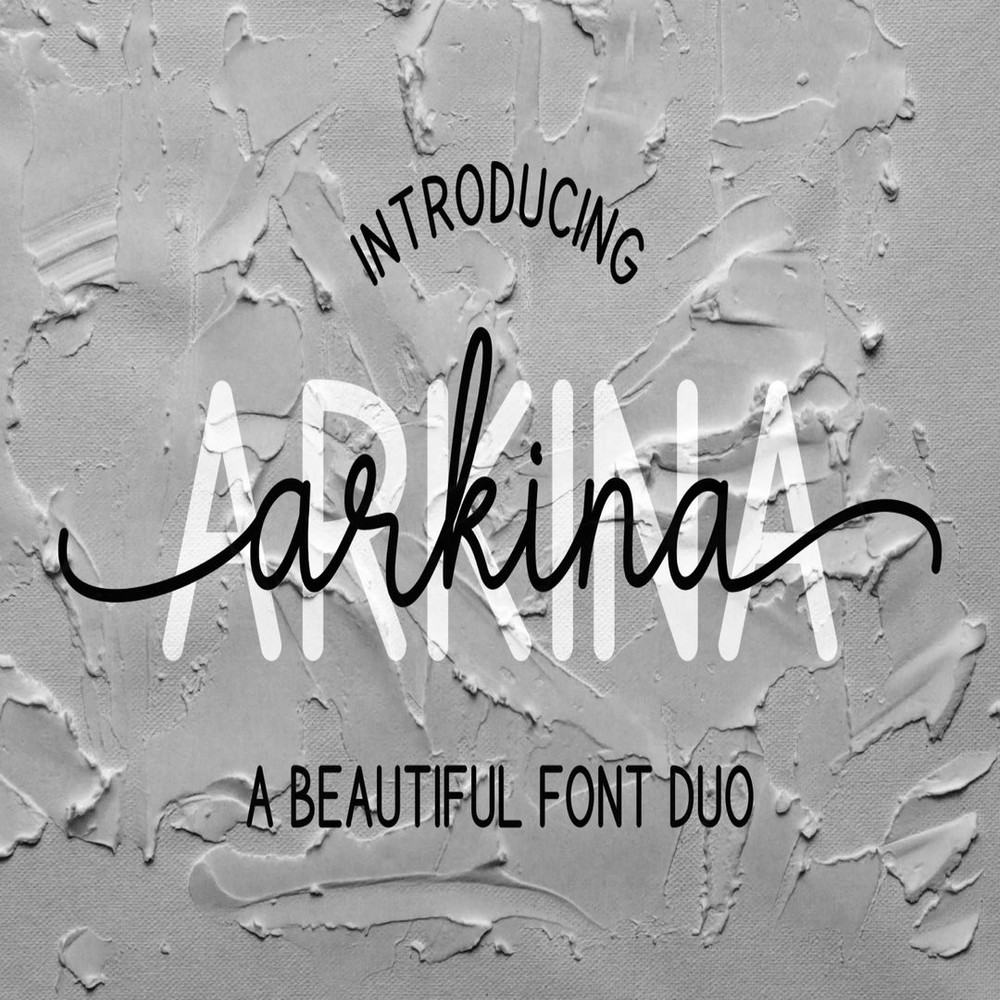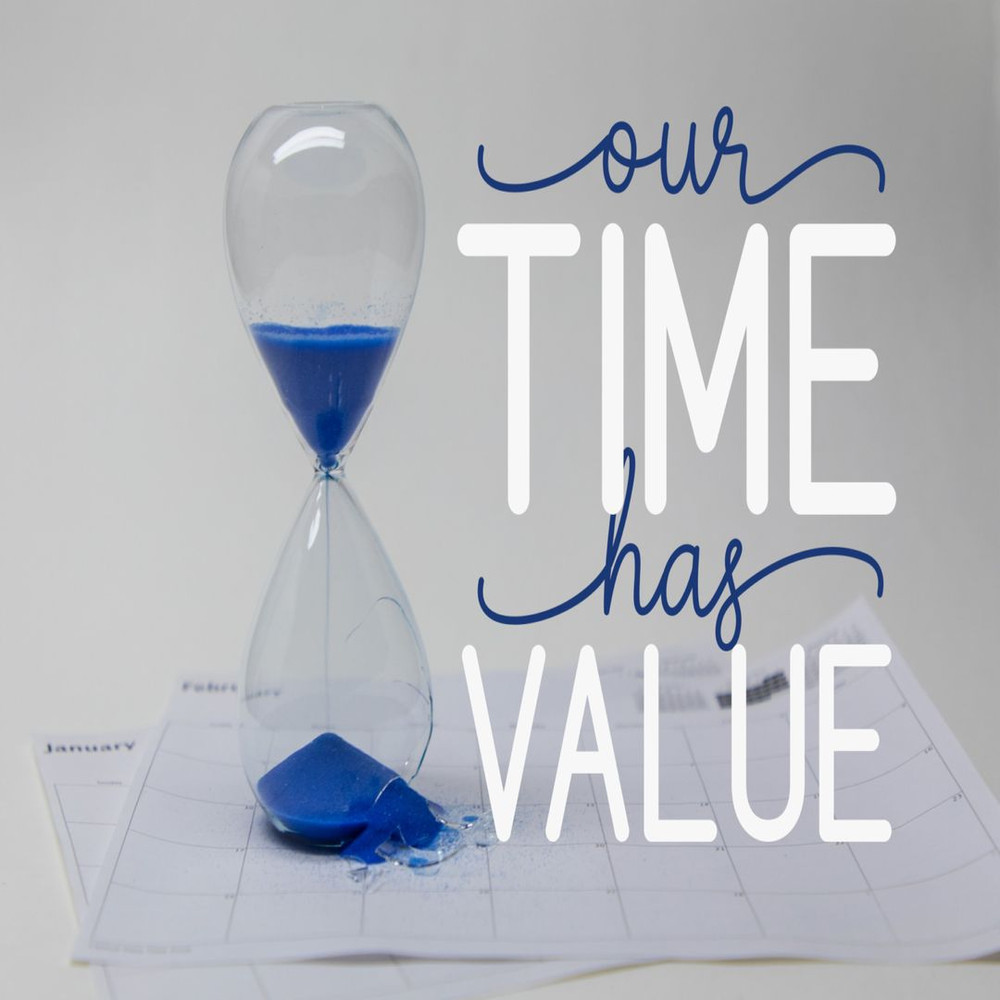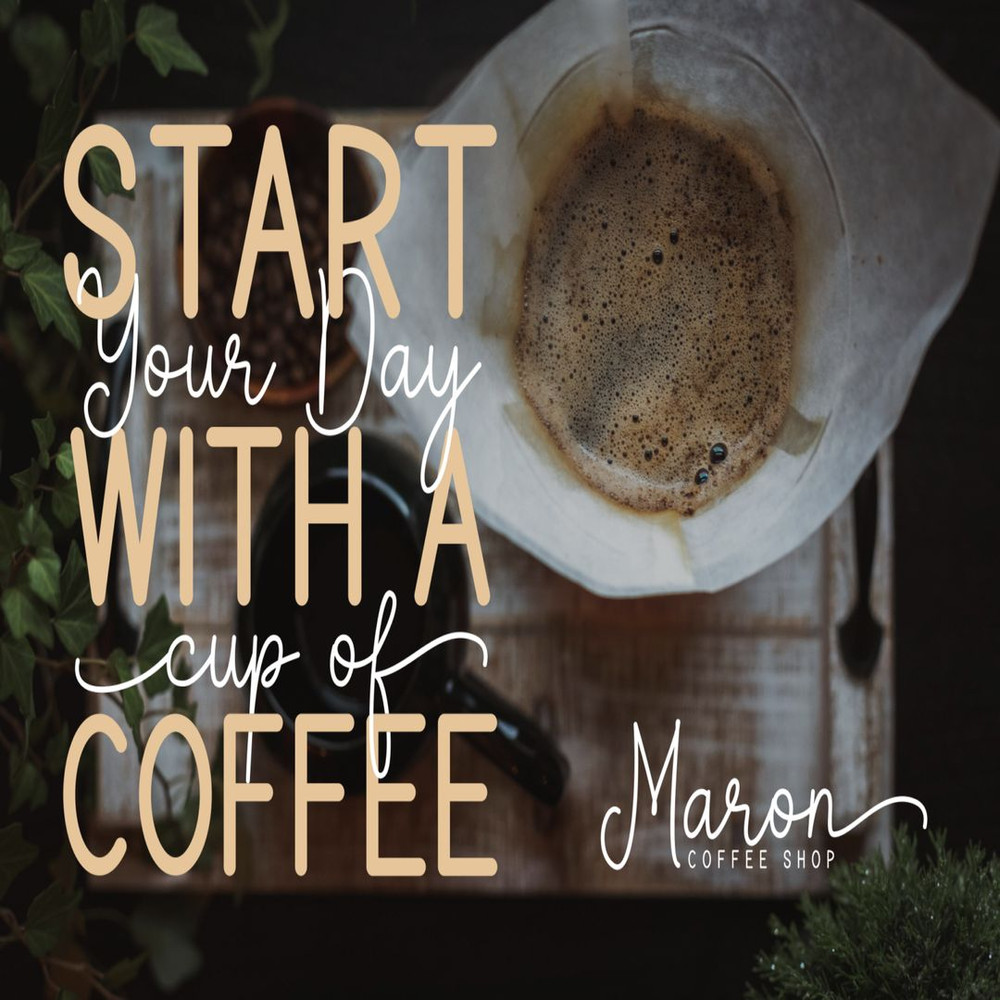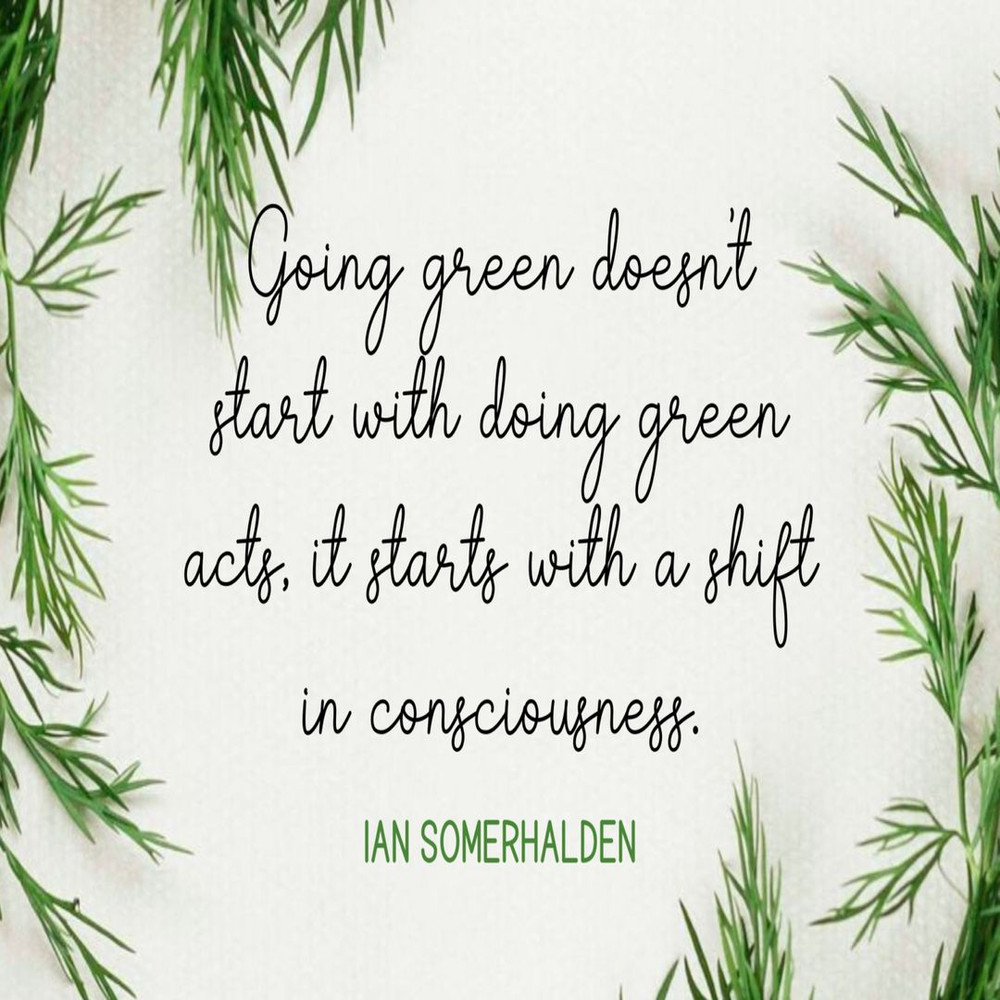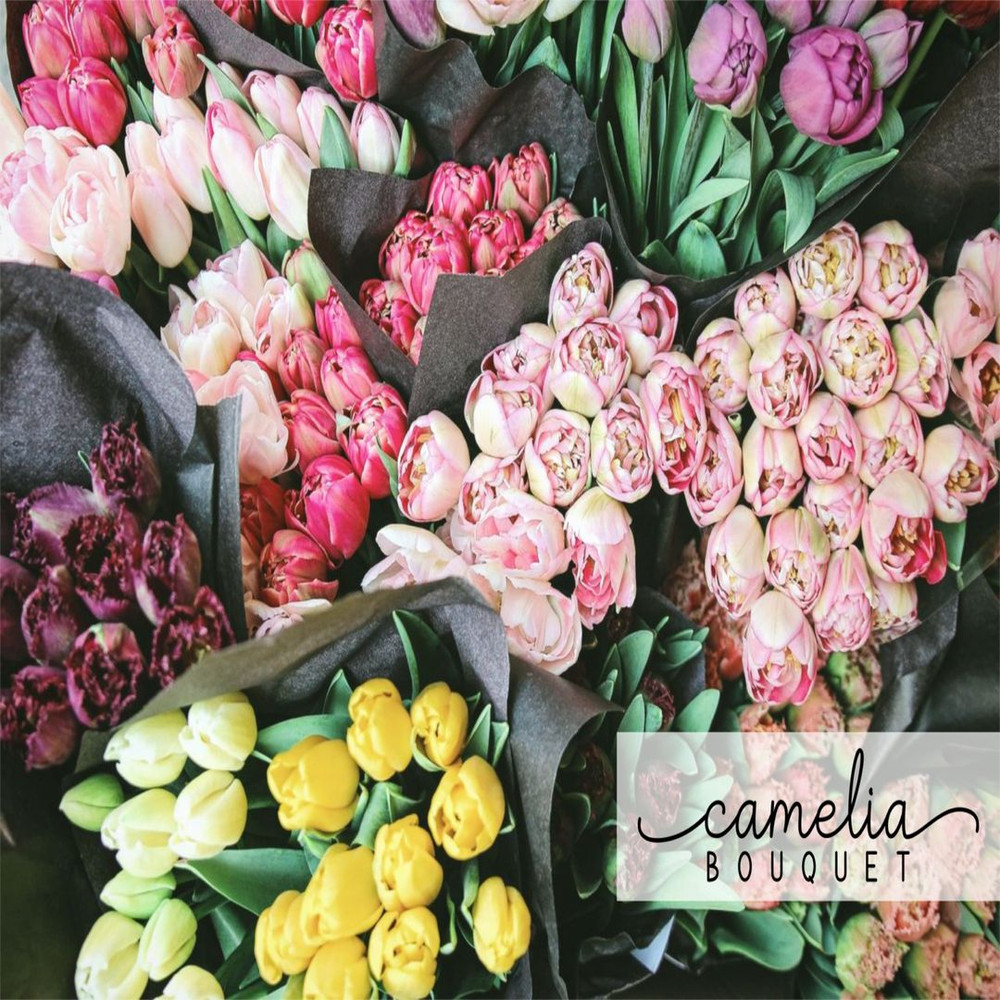
Arkina is a beautiful font duo with a pair of elegant typefaces which consist of a monoline script and sans serif font. The beautiful script and the rounded sans serif perfectly match and bring a luxury and classy feeling to your design.
This classy duo is easy to use and has a great readability. It can be used for watermarks, signature logos, business cards, quotes, invitations, and much more!